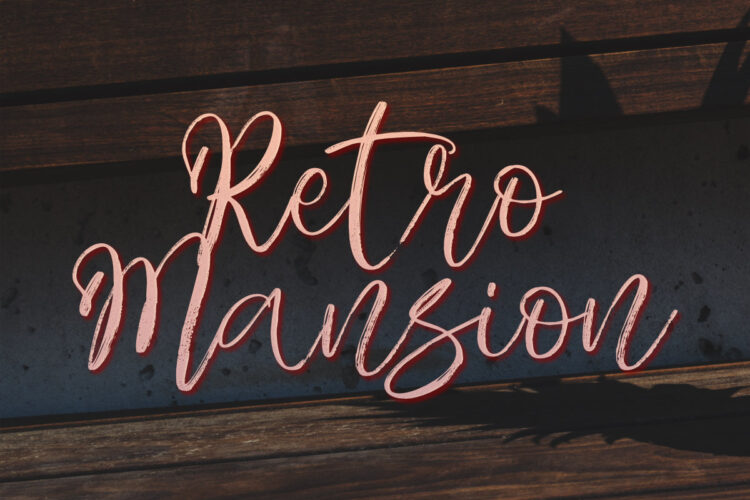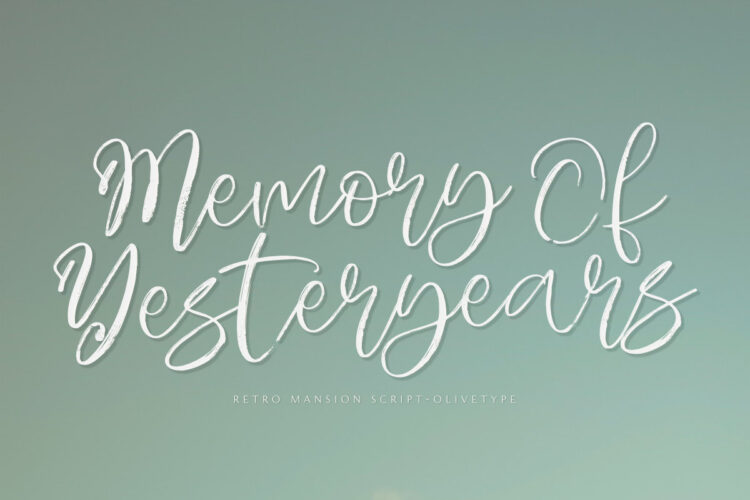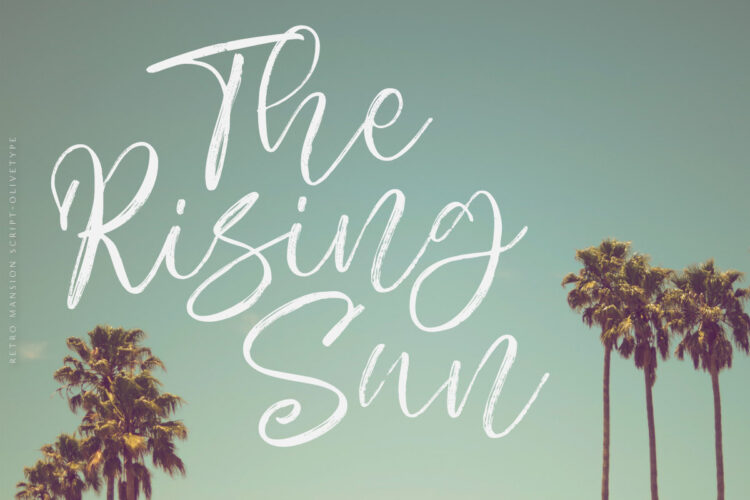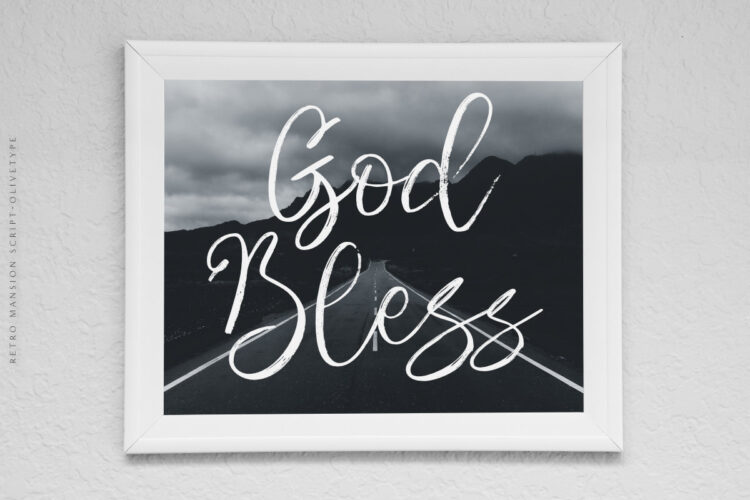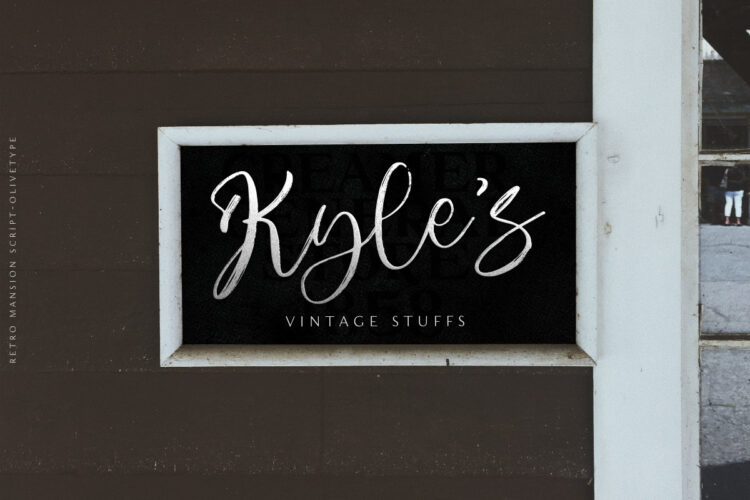
Retro Mansion is a casual dry brush font that is suited for retro-style logos and posters.
- Basic Latin A-Z & a-z.
- Numbers, symbols, punctuations, and ligatures.